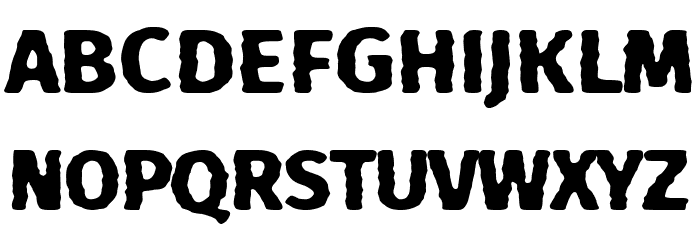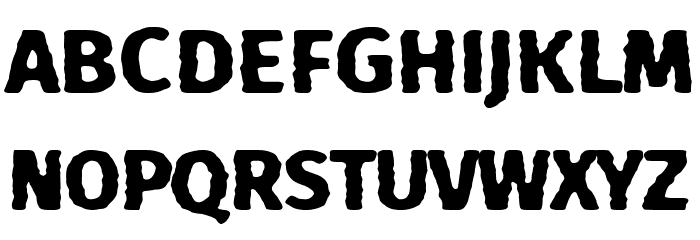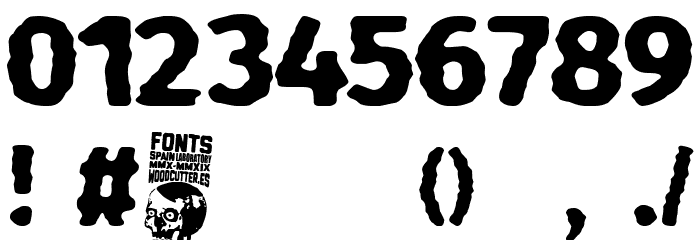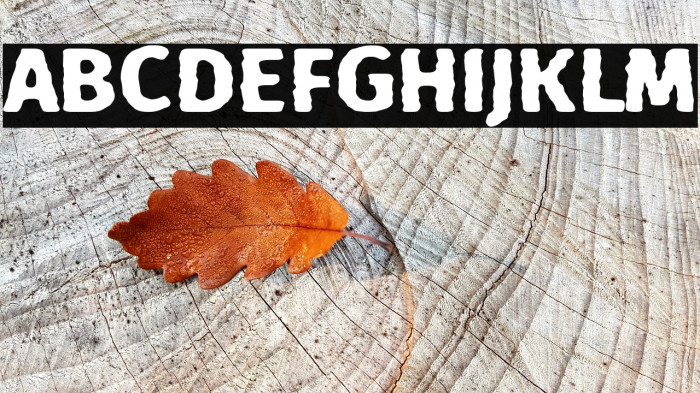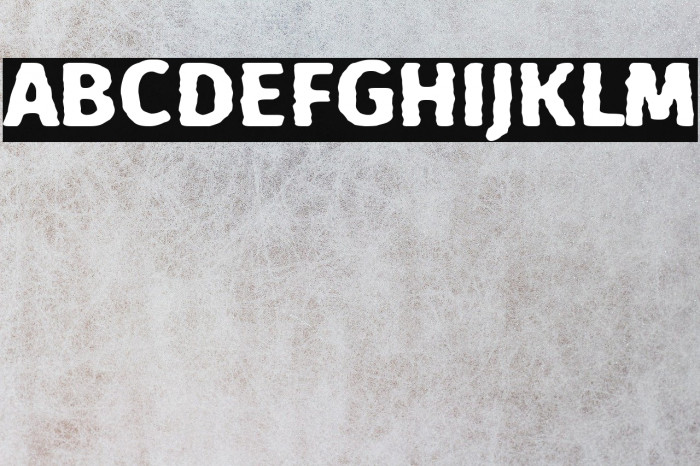
Roca de Escama Font
This font features a bold and rugged style with a hand-drawn appearance. The characters are thick and uneven, giving a textured and organic feel. The uppercase and lowercase letters maintain a consistent weight, and the numbers follow the same design ethos. Special characters are included, matching the overall aesthetic. The font's unique style makes it suitable for projects that require a bold and distinctive look.
A bold, rugged, hand-drawn font with a textured appearance.